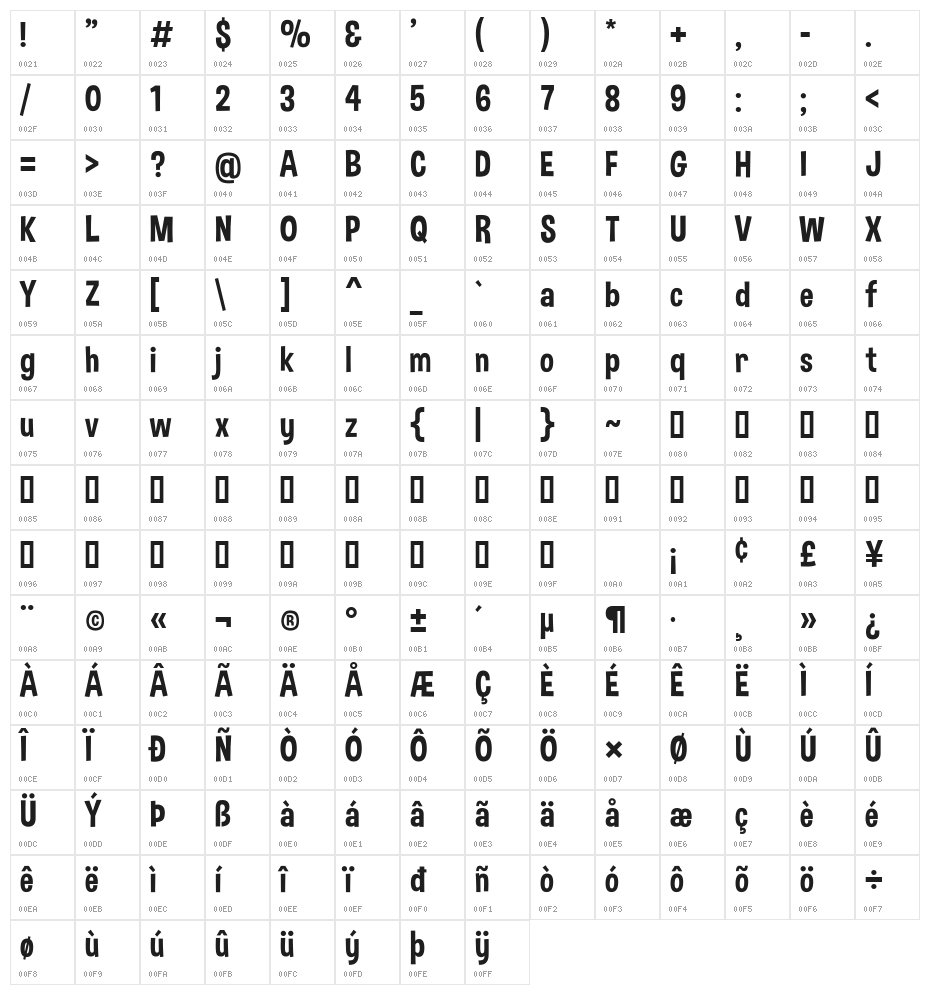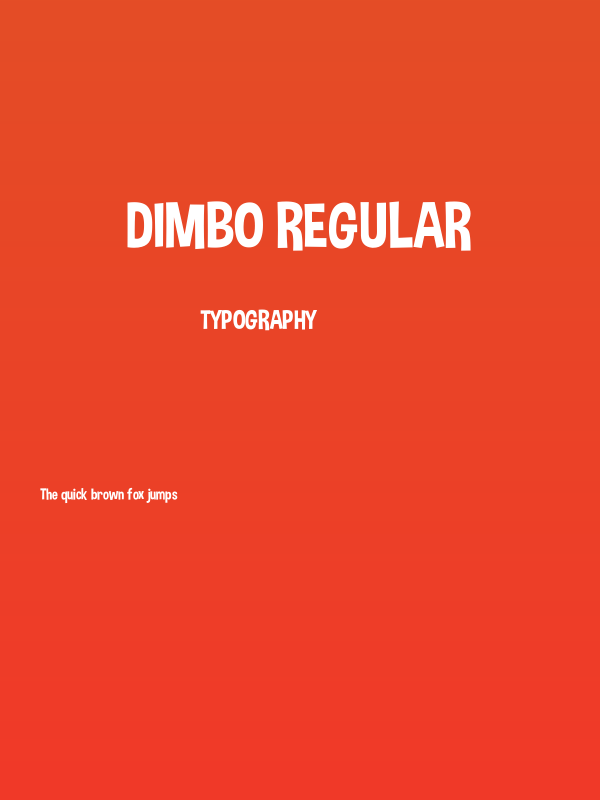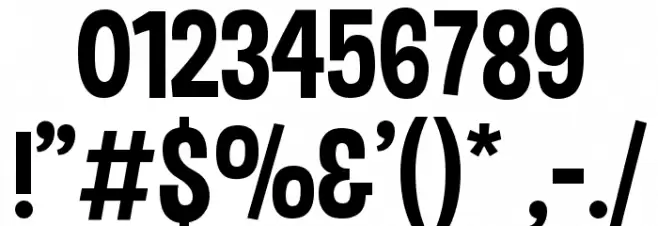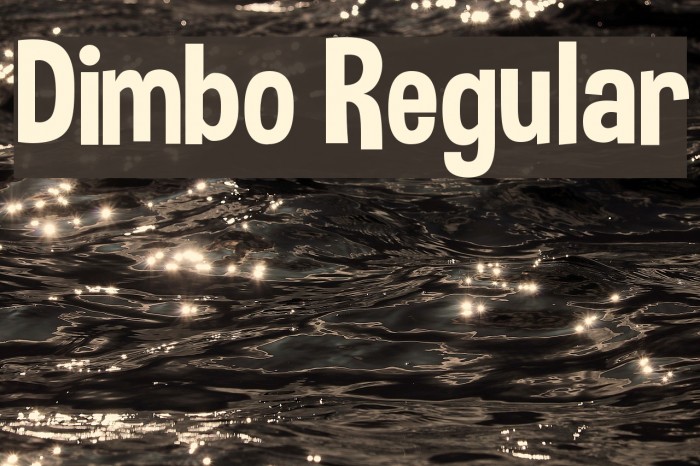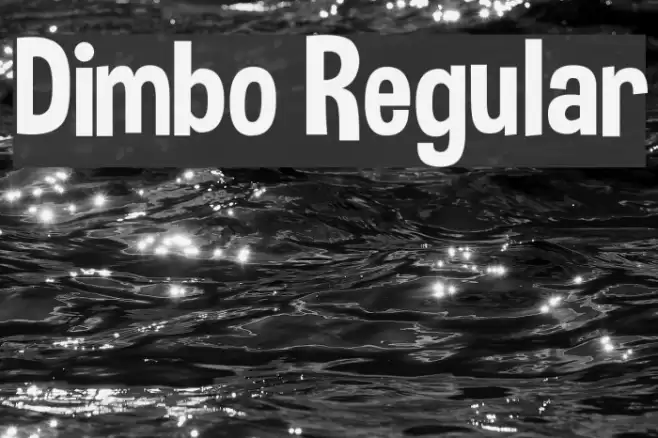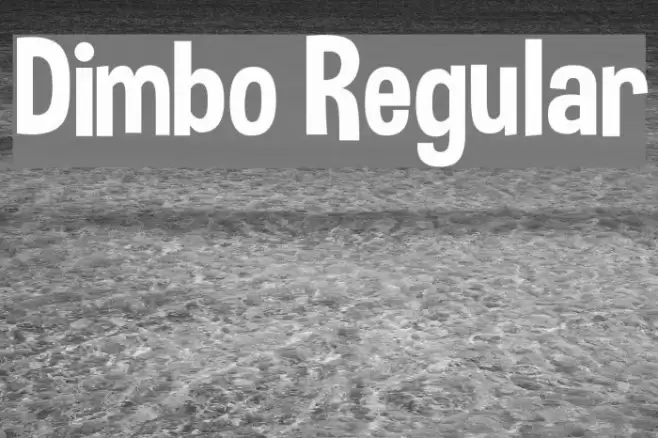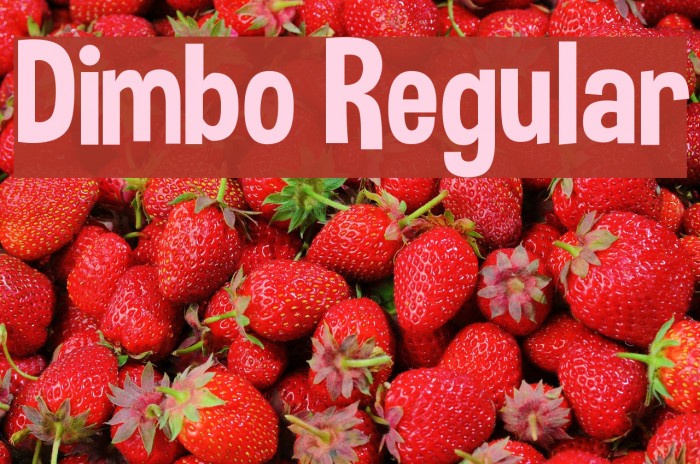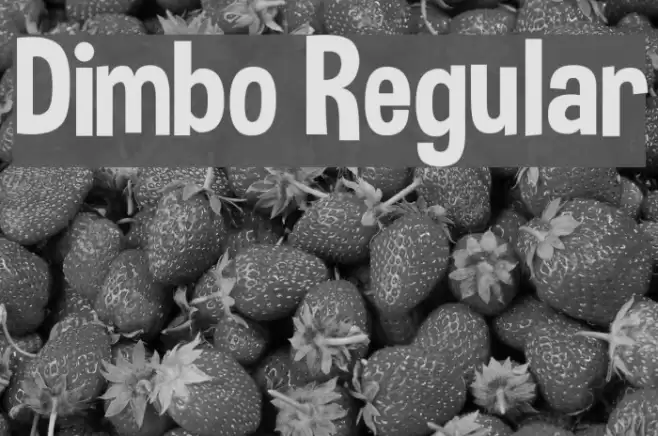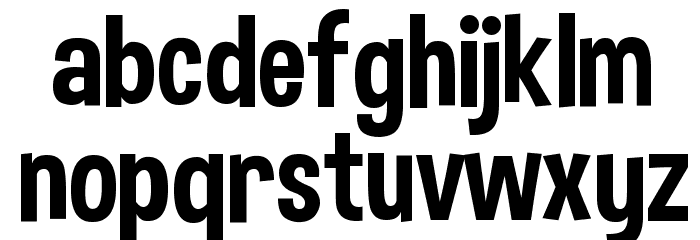
Dimbo Regular Font
Dimbo Regular Description
This font features a bold and assertive style with thick strokes and a strong presence. The characters are well-defined with a consistent weight throughout, making it highly legible and impactful. The uppercase and lowercase letters maintain a uniform width, contributing to a cohesive appearance. The numerals are clear and distinct, while the special characters are easily recognizable, enhancing the font's versatility. Its boldness and clarity make it suitable for attention-grabbing designs.
| Proposed Projects | Ideal for headlines, posters, branding, and advertising where a strong visual impact is needed. |